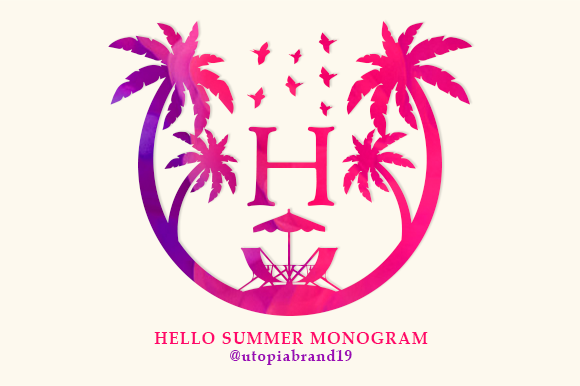
Embark on a creative journey with Hello Summer Monogram, a font family that brings a touch of uniqueness and charm to your digital creations. Designed by the talented utopiabrand19, this decorative font is more than just a collection of letters; it's an expression of your individuality and style.
With its intricate swirls and elegant lines, Hello Summer Monogram transforms ordinary text into captivating works of art. Each letter is adorned with exquisite details, reminiscent of a forgotten era of elegance and sophistication. Whether you're crafting wedding invitations, creating personalized logos, or designing social media graphics, this font adds an instant touch of sophistication and charm.
Unleash your creativity and let Hello Summer Monogram be your muse. Its versatility knows no bounds, allowing you to experiment with different styles and designs until you find the perfect combination that reflects your unique vision. Be it a vintage-inspired poster, a modern logo, or a heartfelt letter, this font has the power to transform your words into something truly extraordinary.
Hello Summer Monogram is more than just a font; it's an invitation to embark on a creative adventure. With its timeless beauty and endless possibilities, this font is the perfect choice for designers, artists, and anyone who wants to add a touch of elegance and personality to their digital creations. Discover the endless possibilities of Hello Summer Monogram today and let your imagination run wild. Explore the collection and download the font now.